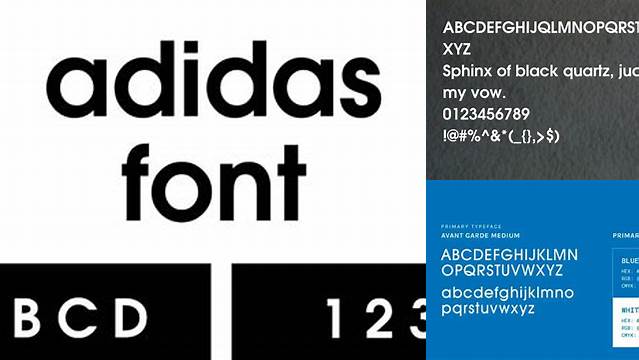
Adidas Font: Free Downloads & Alternatives (2024 Guide)
Hey guys! Are you on the hunt for the perfect font to capture that iconic Adidas vibe? You've come to the right place. In this comprehensive guide, we'll dive deep into everything you need to know about adidas font free download. We'll explore the history behind the Adidas font, where you can find similar fonts for free, how to use them in your projects, and even touch on the legal aspects of font usage. So, buckle up and let's get started!
1. What is the Adidas Font?
Let's kick things off by understanding what exactly the adidas font is. Adidas, the global sportswear giant, has a distinct visual identity, and fonts play a significant role in that. While Adidas doesn't officially release their exact brand font for public use, they primarily use variations of sans-serif fonts that convey a sense of athleticism, modernity, and strength. The fonts often associated with Adidas are bold, clean, and easily legible, making them ideal for branding, marketing, and product design. You'll typically see these fonts used in their logos, advertisements, and on their products. These fonts help to build brand recognition and communicate the company's values.
2. History of the Adidas Font
The history of the adidas font is intertwined with the brand's evolution. Over the years, Adidas has subtly tweaked its font choices to reflect changing design trends while maintaining its core identity. Initially, the brand used simpler, more straightforward sans-serif fonts. As Adidas grew and modernized, their font choices evolved to reflect a sleeker, more dynamic image. The current fonts used by Adidas are a result of careful consideration and branding strategy. These fonts are chosen to resonate with their target audience and to reinforce the brand's position as a leader in the sportswear industry. Understanding this history gives you a better appreciation for the importance of font selection in brand identity.
3. Why is the Adidas Font Important?
The importance of the adidas font extends beyond mere aesthetics. It's a crucial element of their brand identity, helping to create a consistent and recognizable image across all platforms. A well-chosen font communicates the brand's personality, values, and target audience. For Adidas, their font choices reflect qualities like athleticism, innovation, and style. Using a consistent font helps to build brand recognition and trust. When customers see the Adidas font, they immediately associate it with the brand and its reputation. This consistency is vital for effective branding and marketing.
4. Key Characteristics of the Adidas Font
When we talk about the adidas font, certain characteristics stand out. The fonts are typically sans-serif, meaning they lack the small decorative strokes (serifs) found in fonts like Times New Roman. This gives them a clean, modern look. They are also usually bold, conveying a sense of strength and impact. Legibility is another key characteristic; the fonts are designed to be easily readable in various sizes and contexts. Overall, the Adidas font is characterized by its simplicity, boldness, and clarity, making it ideal for a sports brand that needs to project confidence and dynamism.
5. Fonts Similar to the Adidas Font
Okay, so you can't directly download the official Adidas font for free, but fear not! There are plenty of fonts that capture a similar vibe. Think bold, sans-serif fonts with a clean and modern aesthetic. Fonts like Helvetica, Arial, and Futura are excellent starting points. These fonts share the same core characteristics as the Adidas font, including their sans-serif design, strong presence, and readability. Exploring these alternatives allows you to achieve a similar look and feel in your projects without infringing on any copyrights. Plus, many of these fonts are readily available and often come pre-installed on your computer.
6. Free Font Alternatives for Adidas Font
7. Where to Find Adidas Font Free Download (Legally)
Let's be clear: you can't legally find the exact Adidas font for free download. However, you can find fonts that are incredibly similar and free to use. The key is to look for open-source fonts or fonts released under a Creative Commons license. As mentioned earlier, Google Fonts is a fantastic resource for this. Always prioritize using fonts legally to avoid copyright issues. Using legally obtained fonts protects you from potential legal problems and supports the font designers who create these valuable resources.
8. Using Google Fonts for Adidas Font Alternatives
Google Fonts is a treasure trove for finding adidas font alternatives. It offers a wide range of high-quality, open-source fonts that are free for both personal and commercial use. To find fonts similar to the Adidas style, filter your search for sans-serif fonts and look for options with a bold or medium weight. Roboto, Open Sans, and Montserrat are excellent choices. Google Fonts also allows you to easily preview fonts and download them directly to your computer or embed them on your website. This makes it a convenient and reliable resource for all your font needs.
9. Font Squirrel: Another Great Resource for Free Fonts
Font Squirrel is another fantastic website for discovering free fonts that resemble the adidas font. What sets Font Squirrel apart is its focus on commercial-use fonts. This means you can confidently use the fonts you find on this site for your business projects without worrying about licensing restrictions. Like Google Fonts, Font Squirrel offers a user-friendly interface that makes it easy to search and preview fonts. You'll find a variety of sans-serif fonts that capture the Adidas aesthetic, making it a valuable resource for designers and creatives.